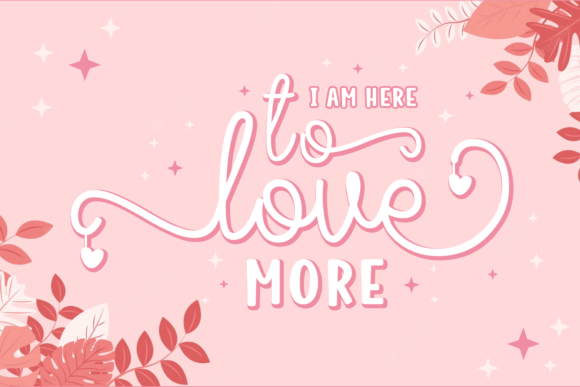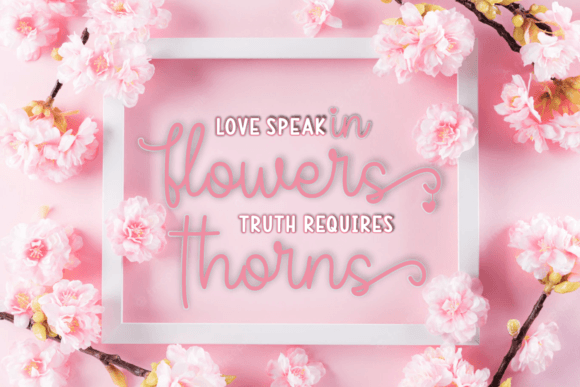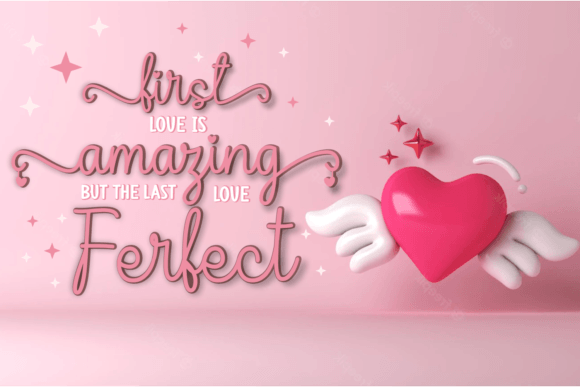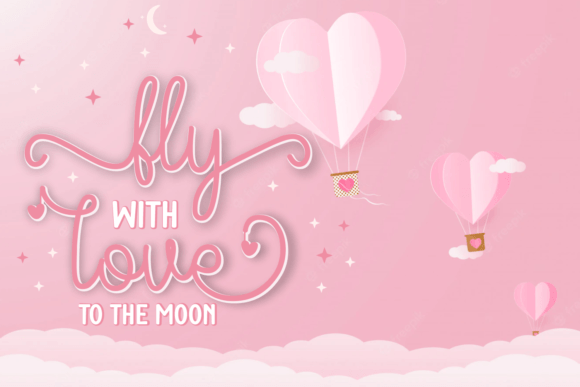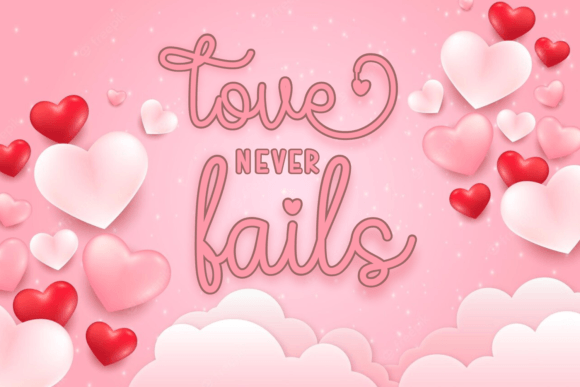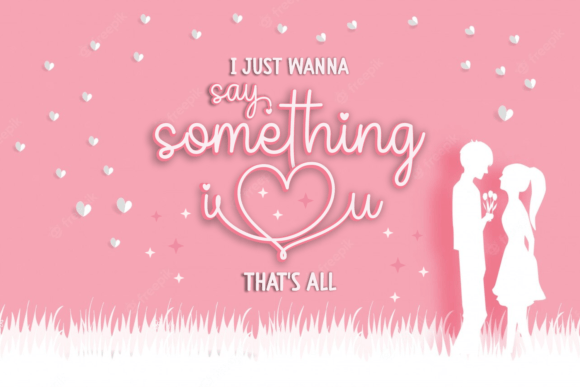
Introduction to Nattasha Laviolla Font
Nattasha Laviolla is a fancy and elegant handcrafted font that was created to impress your audience and make your branding shine.
Make your projects dance with this elegant and wonderful font wherever you use it .